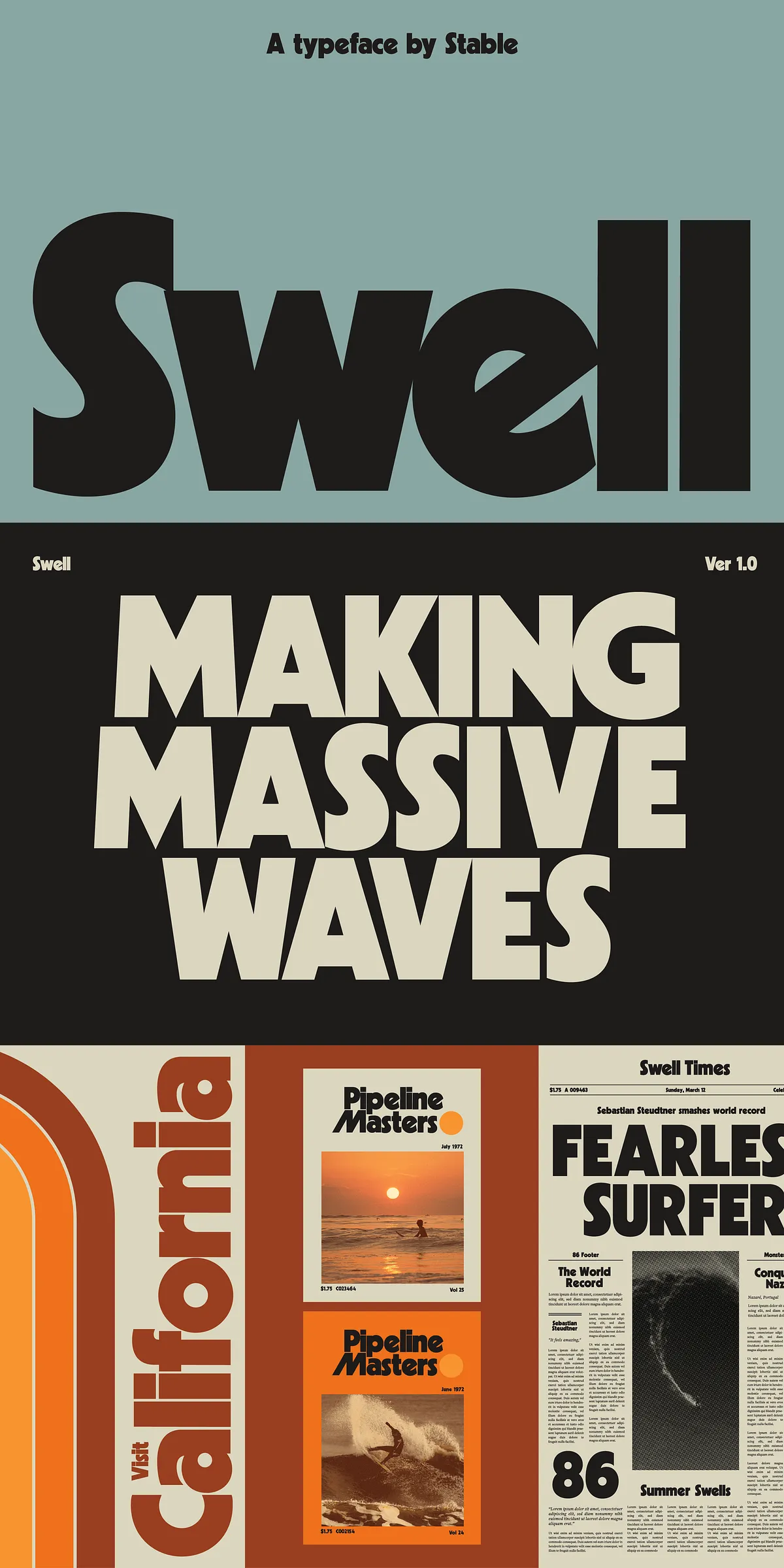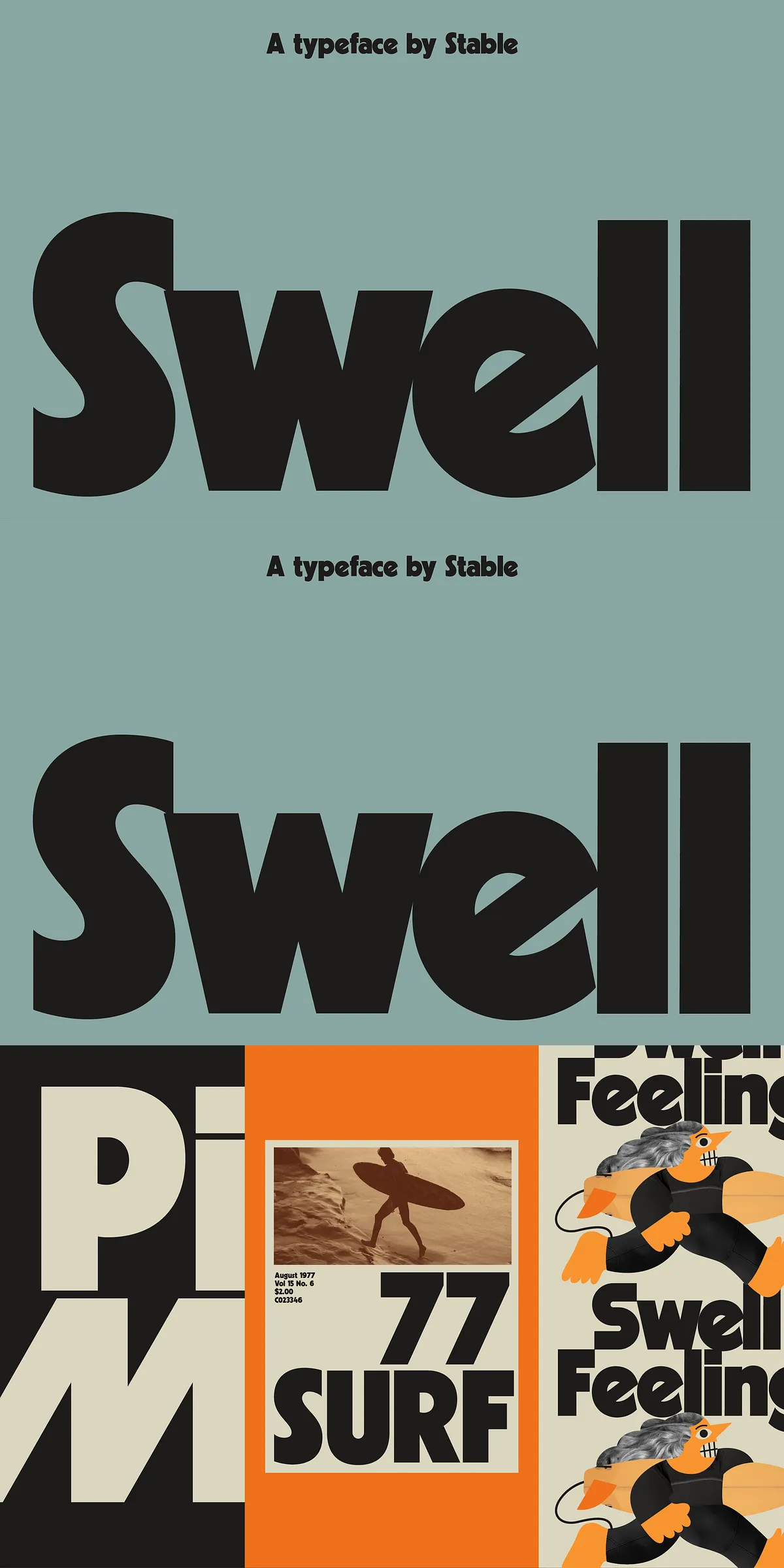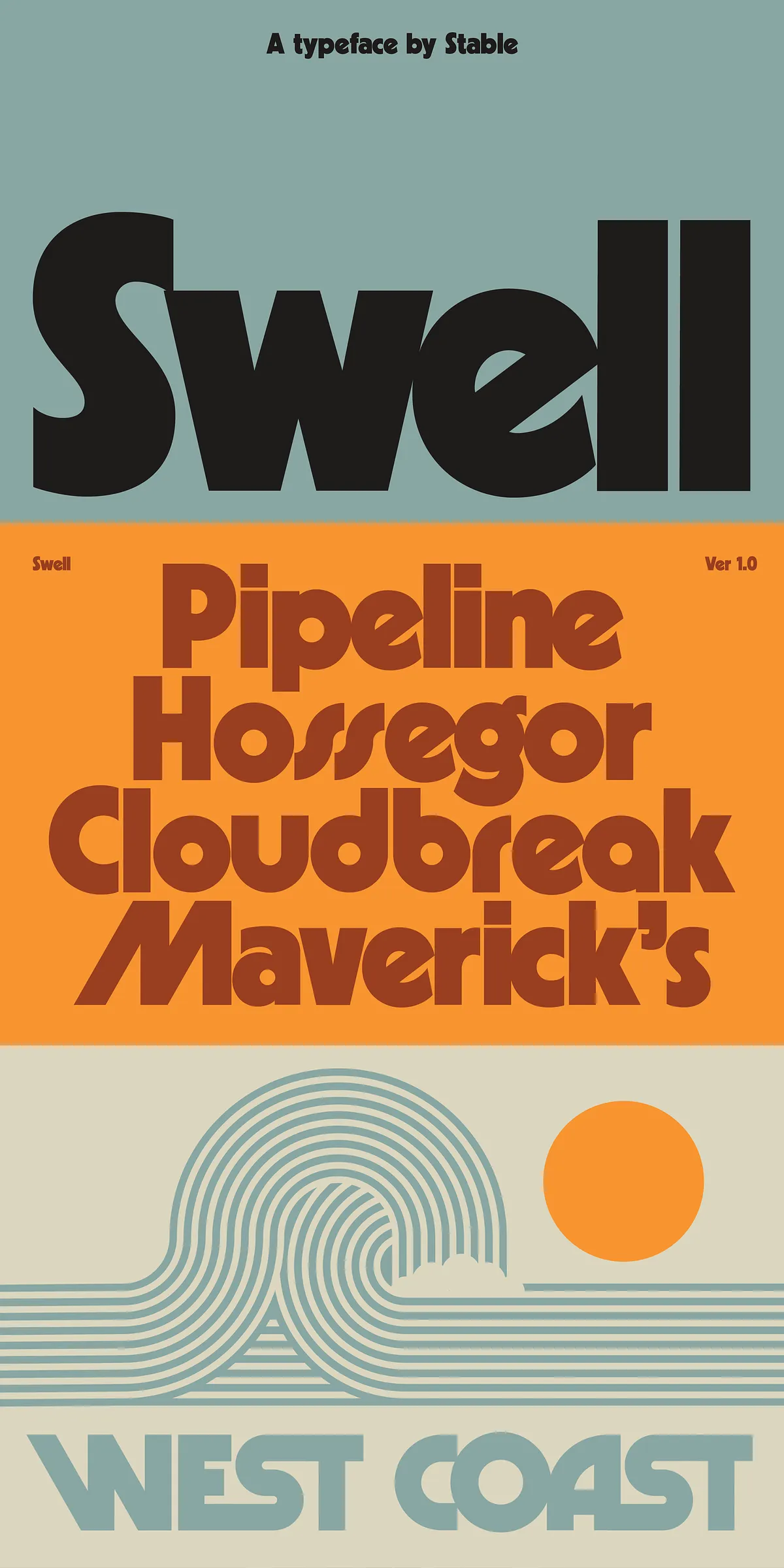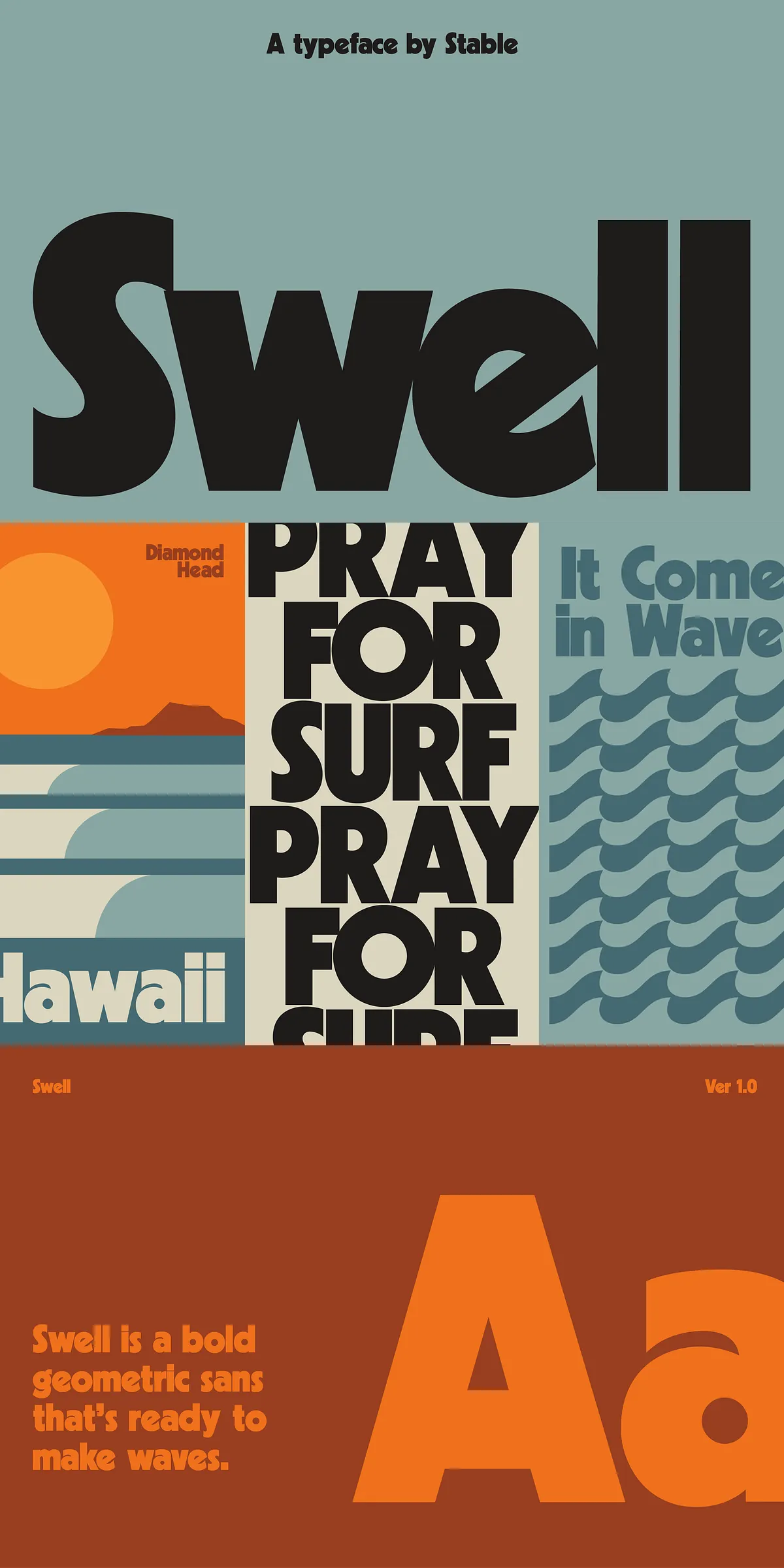
Redefine Boldness with Swell: A Modern Geometric Powerhouse
Step into a new era of typographic strength with Swell — a fearless evolution of the legendary Kabel Black. This isn’t just a revival; it’s a transformation. Swell takes the classic backbone of geometric boldness and injects it with fresh energy, personality, and a modern edge. With crisp uppercase and fluid lowercase forms, bold proportions, and a meticulously crafted set of over 50 alternative glyphs, Swell is engineered for designers who demand authority without sacrificing style.
Master the Art of High-Impact Typography
Swell delivers a visual presence that commands attention. Its sharp, angular geometry and consistent stroke weight create an unrelenting sense of strength and precision. Every character is designed to stand tall, whether used in a logo, a poster, or a digital interface. The font’s modern reinterpretation of classic elements makes it feel both familiar and refreshingly new.
- Complete Character Set: Includes uppercase and lowercase Latin letters, numerals, punctuation, and symbols for seamless integration across all design projects.
- Over 50 Alternative Glyphs: Expand your creative palette with stylistic variations of key letters — from bold terminals to unique forms — for dynamic text treatment and visual flair.
- Stylistic Inspirations: Drawn from iconic fonts like Avante Garde (spatial elegance), Marvin (urban grit), and Blippo (playful intensity), Swell blends the best of modern geometric tradition with contemporary expression.
Unlock Expressive Design Possibilities
No two Swell designs should look the same. Leverage the alternative glyphs to create unique variations, subtle contrasts, or rhythmic patterns across headlines and branding materials. Use different forms of the letter “A” or “S” to introduce visual rhythm, or opt for more aggressive alternatives in key words to emphasize a message. This font isn’t just readable — it’s reactive, adapting to your creative intent.
Its geometric clarity ensures legibility even at small sizes, while its bold forms dominate large-scale applications like billboards, packaging, and editorial cover lines. Whether you’re building a brand identity or launching a bold campaign, Swell gives your text the weight and character it deserves.
Design Applications Where Power Matters
Bold. Modern. Unapologetic.
Swell isn’t just a font — it’s a statement. It reclaims the legacy of Kabel Black and reshapes it for today’s creative landscape. With a perfect balance of classic form and modern innovation, it’s the ideal choice for designers who want to lead with strength, elegance, and visual power.